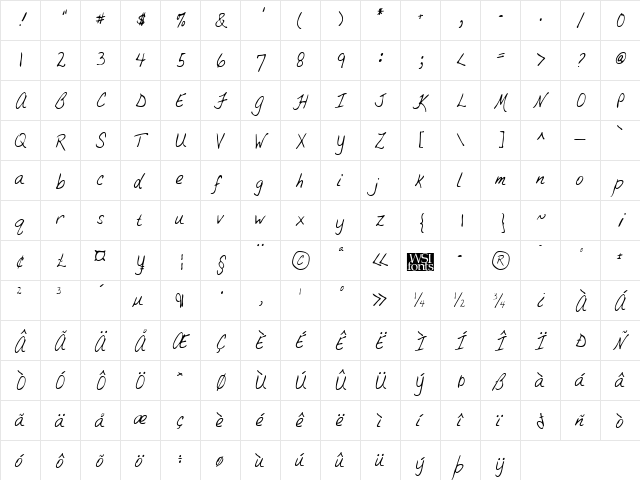
BrandysHand Regular
Design Context for BrandysHand Typeface
BrandysHand flows with the natural rhythm of handwritten lettering, making it ideal for designs that call for warmth and personal expression.
Font Pairing: Combine BrandysHand with a simple geometric sans for maximum contrast — the tension between flowing curves and clean structure is a classic typographic pairing.
Pro Tip: Pair BrandysHand with a clean sans-serif for supporting text. The contrast between fluid script and geometric structure creates an elegant typographic hierarchy.